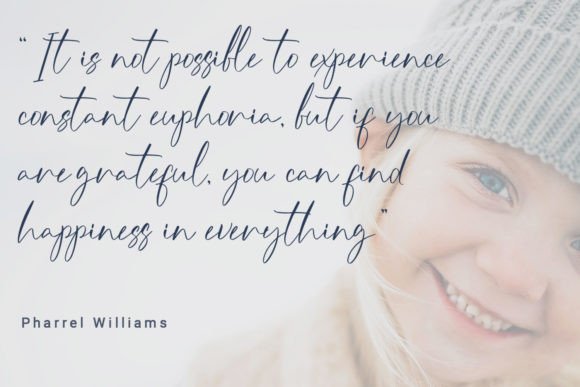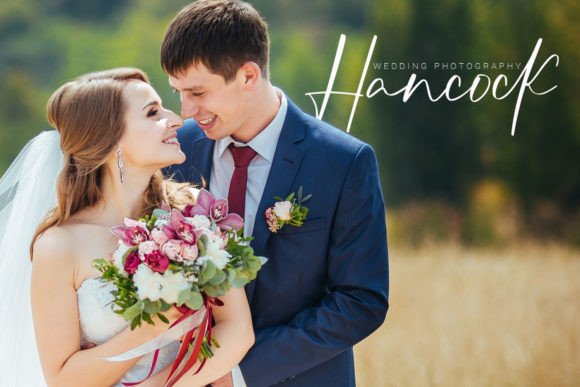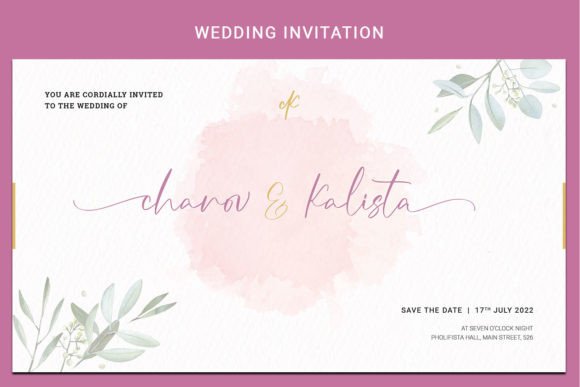
Introduction to Lattinium Font
Lattinium is a unique and elegant handwritten font.
It looks beautiful on a variety of designs requiring a personalized style, such as wedding invitations, thank you cards, greeting cards, logos, and so on .